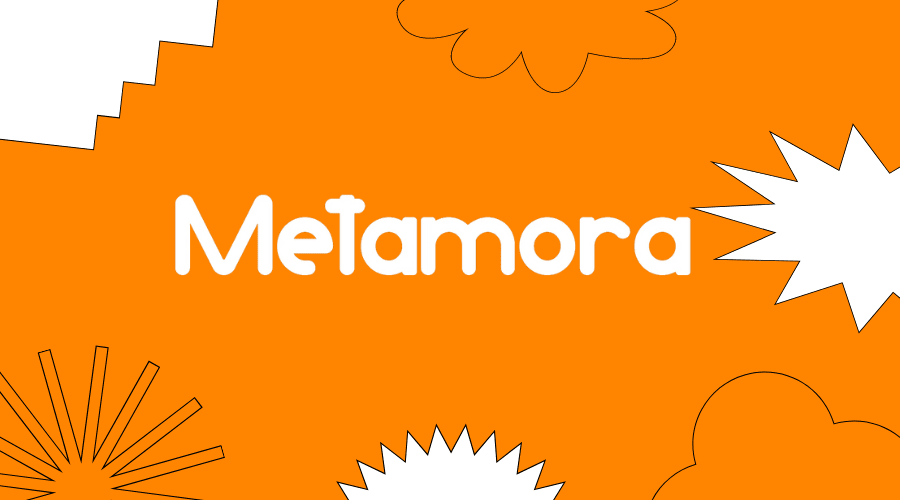
Metamora font is a Display sans-serif typeface with comic-edge forms. This font style is crafted very carefully whether you’re servicing a birthday celebration invite or producing the future generation of superheroes, this typeface is the best font for you! Fresh and also hip, while never taking itself too seriously. It resembles Comic Sans’ cooler younger sibling without the social preconception. Carefully made to collaborate in harmony and also This needs to make your designs quickly cool.
Metamora Font consists of the full collection of Capital and Lowercase Basic Personalities, Numerals, and also Punctuation. Likewise, it contains ligatures to make it flawless characters to completely make an incredible look that adds even more aesthetic font styles to ideal your phenomenal job.
Metamora will be great for Use it for any project that needs a cheerful and playful look! Perfect for labels, quotes, posters, DIY projects, branding, packaging, greeting cards, websites, photography kids, window art, scrapbooking, tags and so much more!